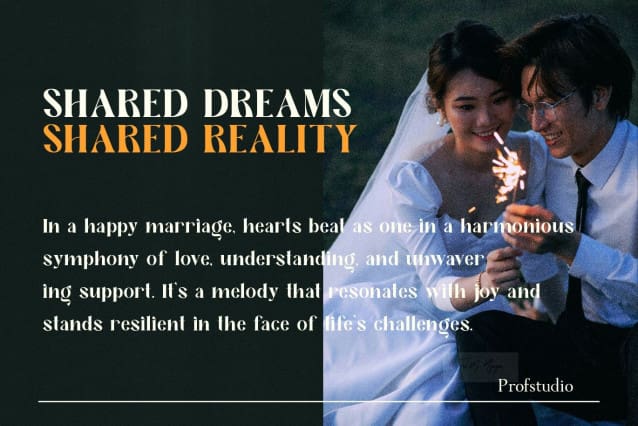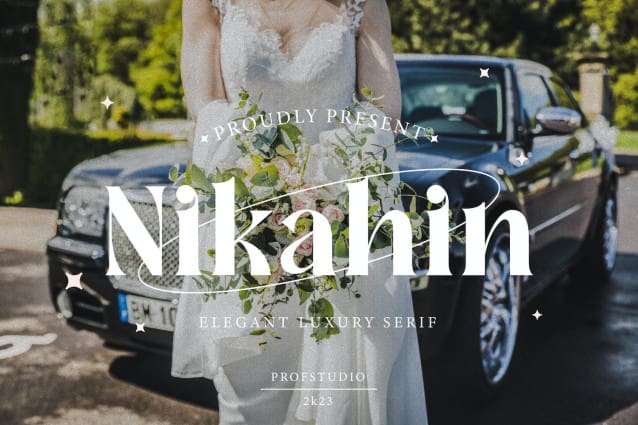
Nikahin Font
Nikahin Font – Elegant script that can be performed professionally. We make this font look elegant, premium, modern, readable, stylish, eye-catching and easy to use.
Nikahin – is ideal choice for watermarks on photography, branding, wedding events, signature or logo design, quotes, album cover, magazine, card tour and many other design projects. Nikahin is here to take your work to the highest level!!!!